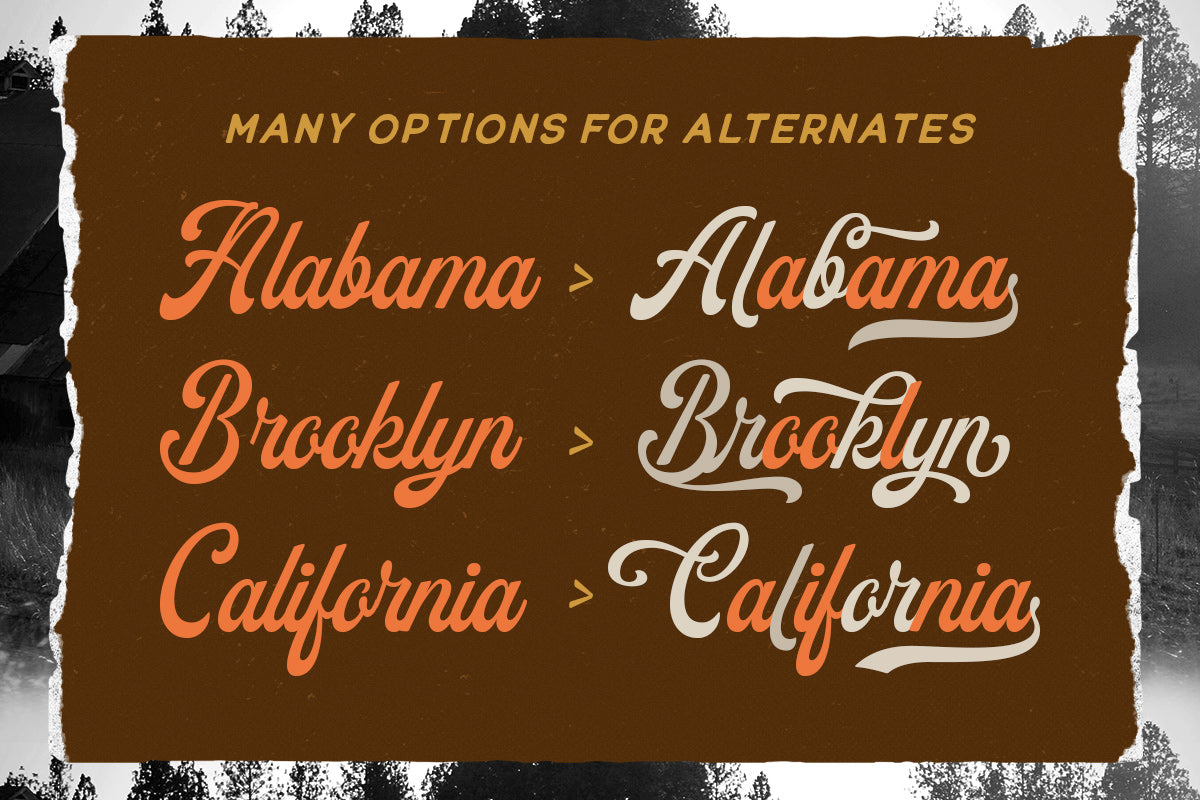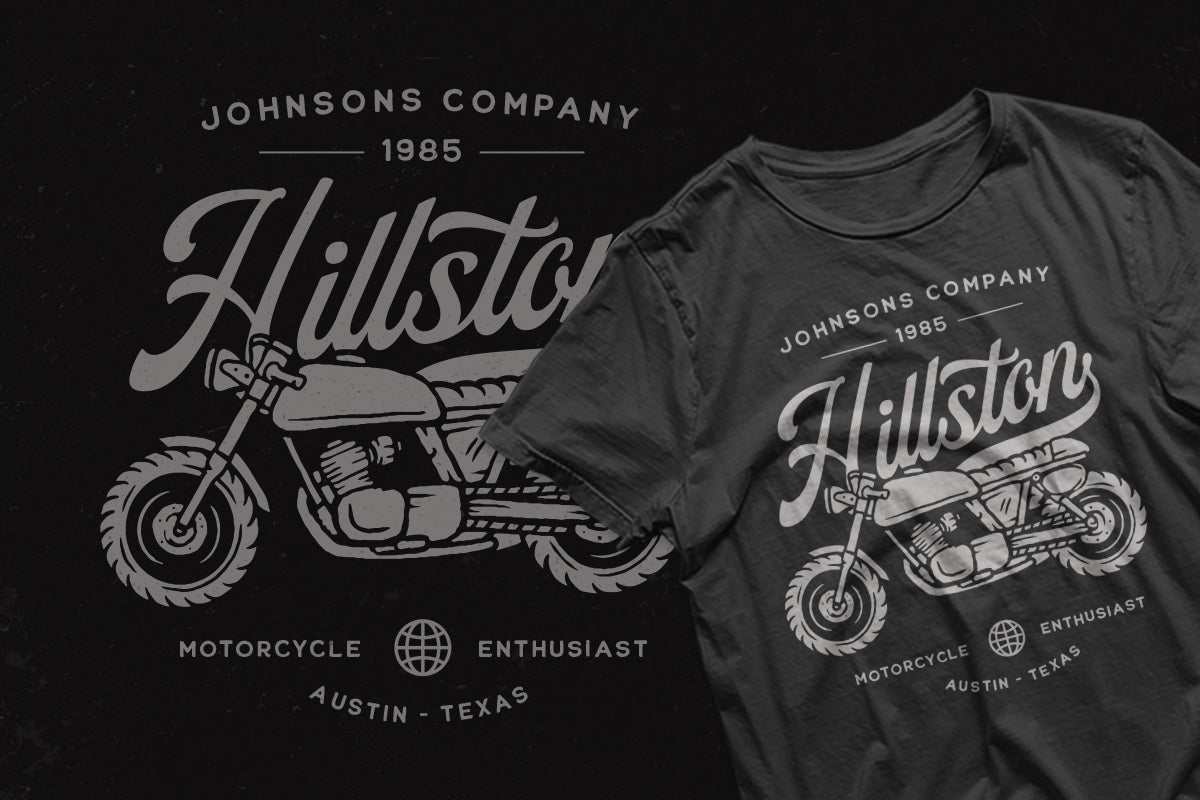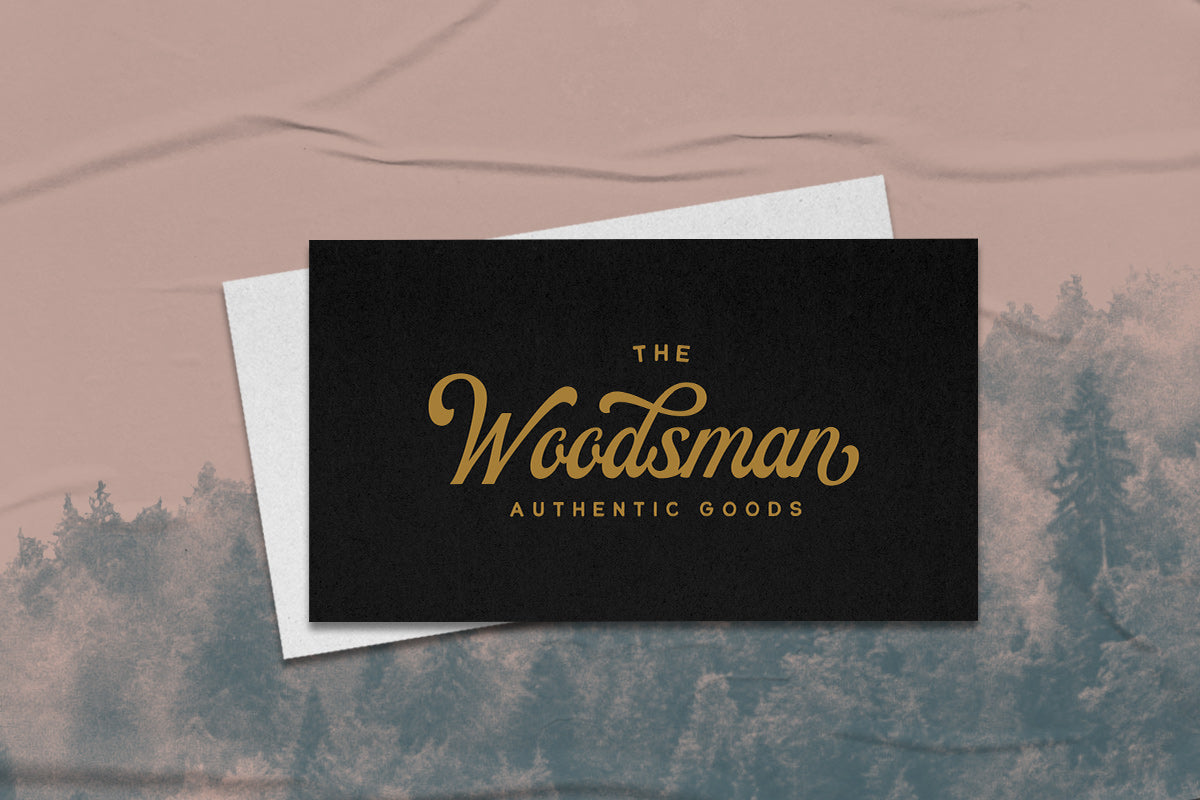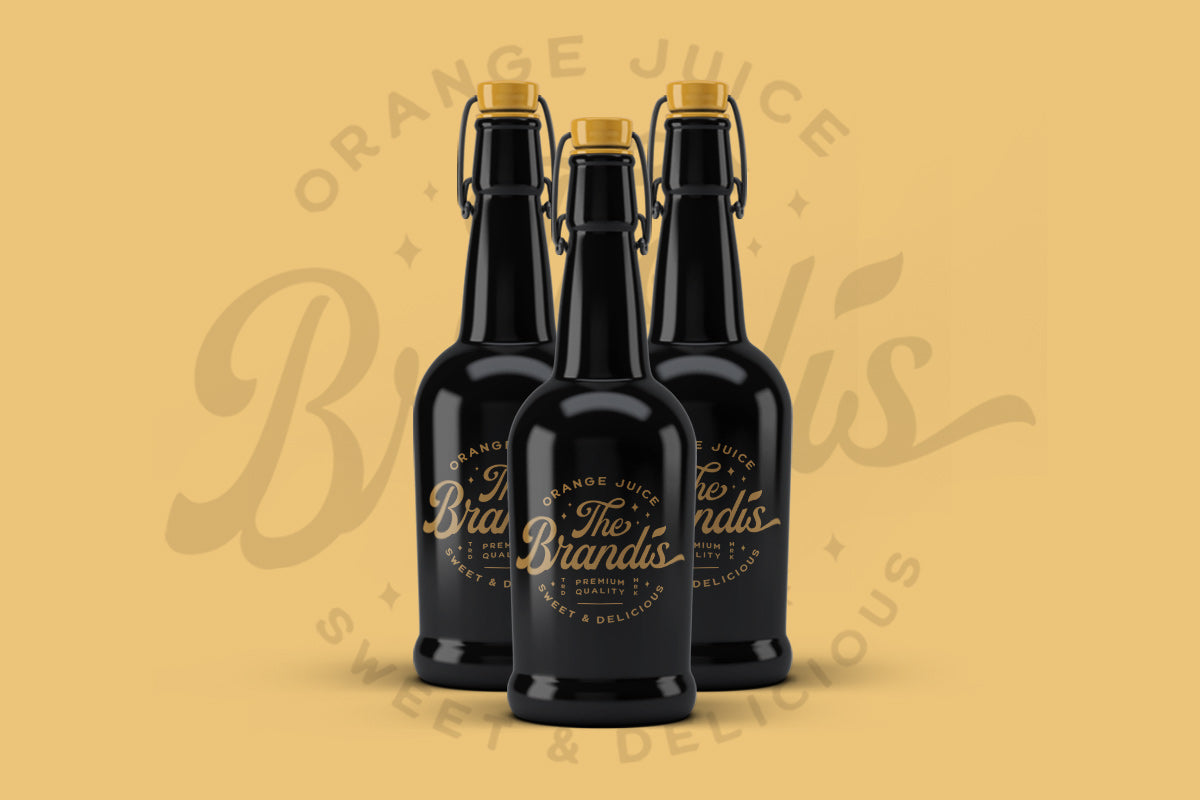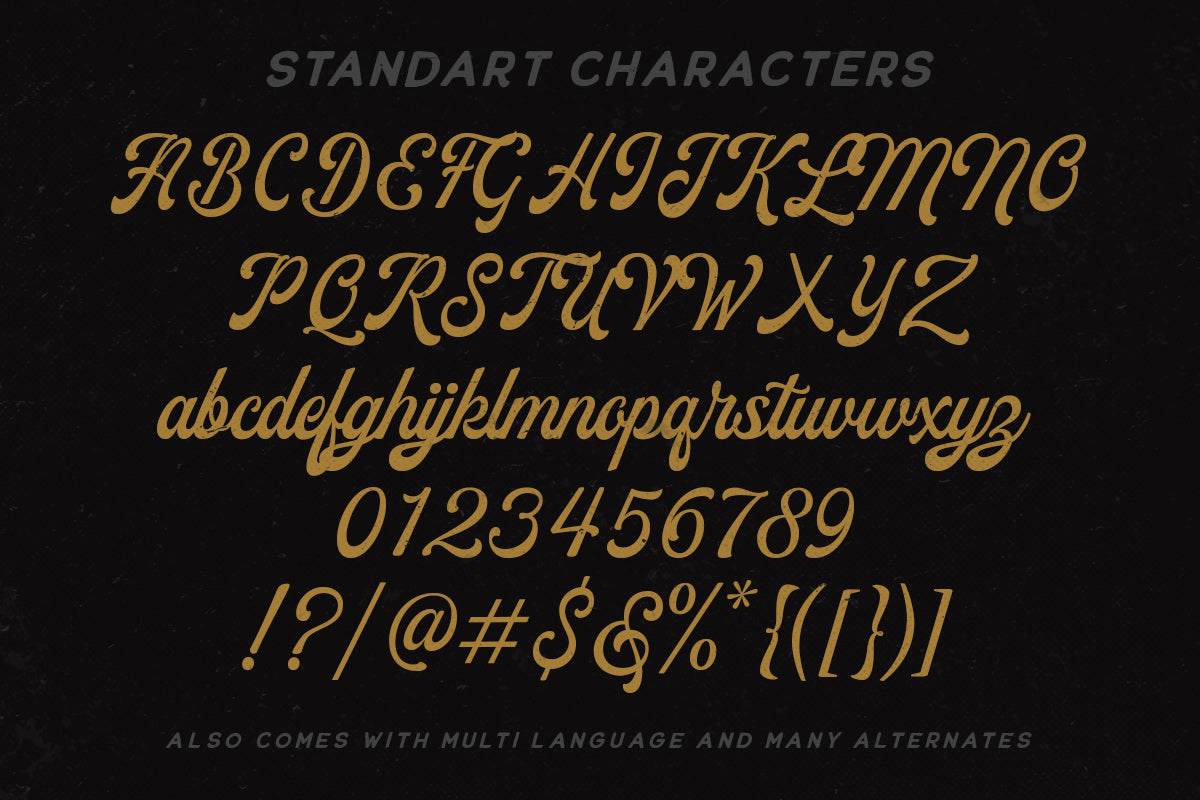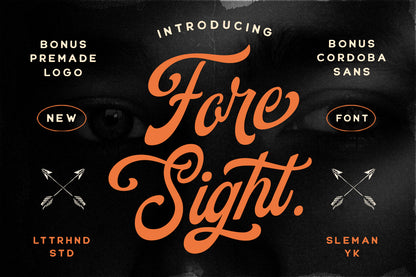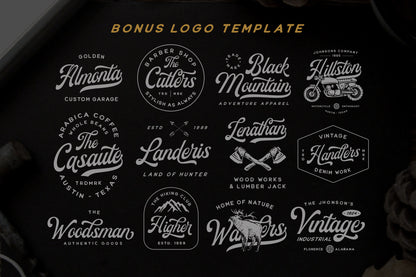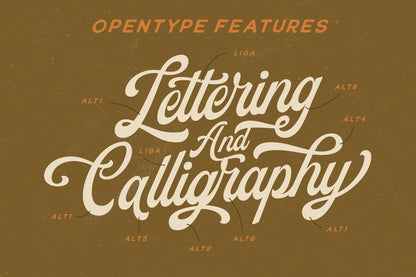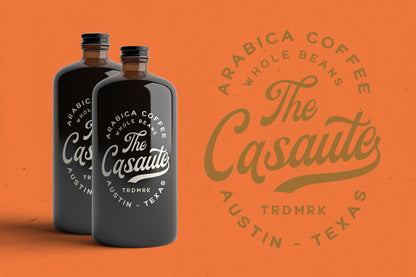
Foresight is a vintage script font designed specifically for headlines, displays, and logotypes. It includes 12 logo templates. This font is perfectly suited for use in logos and various formal applications such as invitations, labels, magazines, books, greeting or wedding cards, packaging, fashion, makeup, stationery, novels, and any type of advertising.
Features:
Foresight font & Cordoba sans font
uppercase & lowercase
numbers and punctuation
multilingual
alternates & ligatures